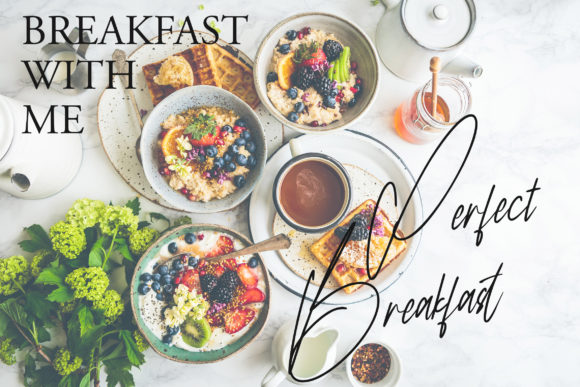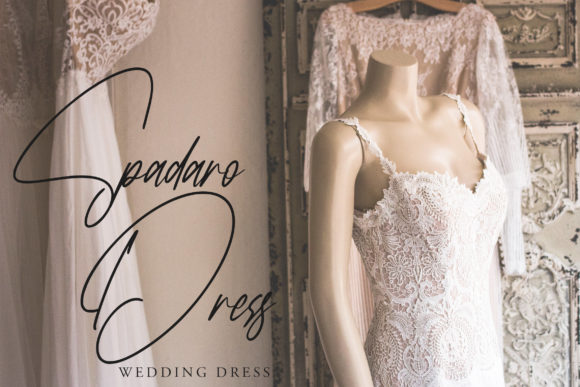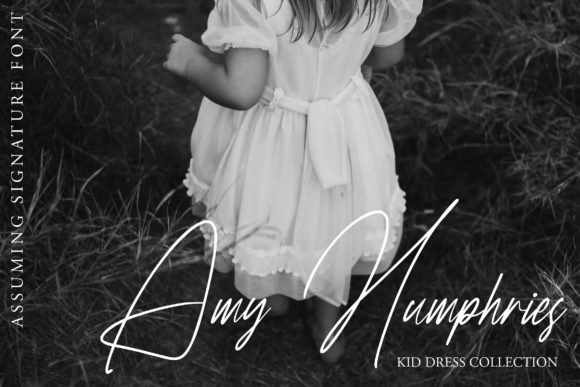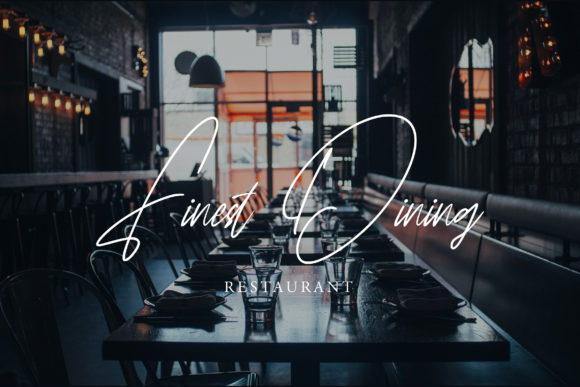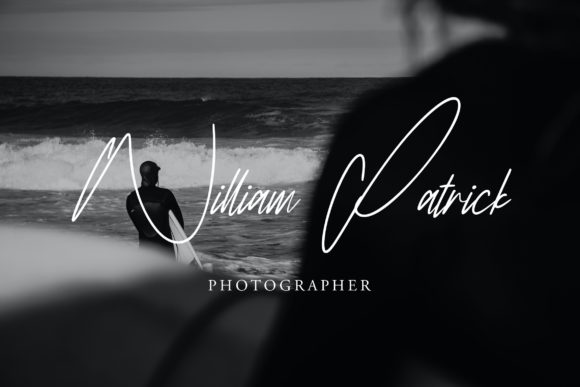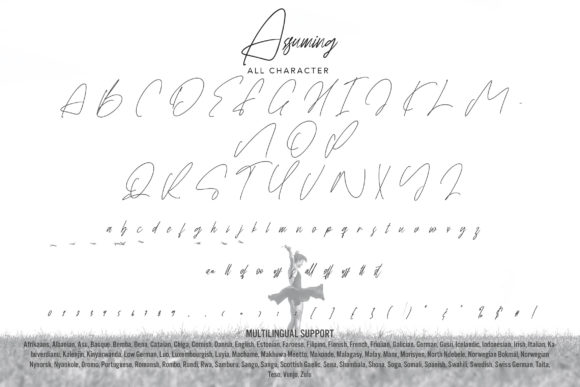
Introducing Assuming Font: Elevate Your Design with Elegance and Sophistication
In the world of typography, few fonts manage to capture the essence of luxury and romance as effortlessly as Assuming Font. This exquisite, thin calligraphy typeface is designed to add a touch of elegance and sophistication to any design project. With its unique charm and fluidity, Assuming Font is set to become a favorite among designers and crafters looking to infuse their creations with a sense of high-end style.
The Characteristics of Assuming Font
Assuming Font stands out with its romantic and thin calligraphy style, where characters seem to dance along the baseline. This dynamic movement creates a sense of fluidity and grace, making it perfect for projects that require a touch of luxury and refinement. The font’s design is meticulously crafted to ensure that each letter, word, and sentence flows seamlessly into the next, creating a visually stunning effect that captivates the viewer.
Adding a Luxury Spark to Your Designs
Whether you’re working on a branding project, packaging design, wedding invitations, or any other creative endeavor, Assuming Font is sure to add a spark of luxury. Its elegant and sophisticated appearance instantly elevates the design, making it more appealing and engaging. The font’s versatility allows it to be used in various contexts, from digital platforms to print materials, ensuring consistency and high-quality presentation across all mediums.
Why Designers and Crafters Love Assuming Font
Designers and crafters adore Assuming Font for several reasons:
- Elegance and Sophistication: The font’s luxurious feel makes it perfect for high-end branding, fashion, and lifestyle projects.
- Versatility: Assuming Font can be used in a wide range of design applications, from digital interfaces to print materials.
- Readability: Despite its thin and delicate appearance, the font maintains excellent readability, making it suitable for both headings and body text.
- Uniqueness: Assuming Font’s distinctive style sets it apart from more traditional typefaces, allowing designers to create unique and memorable designs.
Tips for Using Assuming Font Effectively
To make the most of Assuming Font, consider the following tips:
- Pair with Complementary Fonts: Combine Assuming Font with simpler, sans-serif fonts for contrast and visual interest.
- Adjust Letter Spacing: Fine-tune the letter spacing to enhance the font’s fluidity and ensure optimal readability.
- Use for Headings and Accents: Apply Assuming Font to headings, titles, and accents to draw attention and add a luxurious touch.
- Experiment with Colors: While the font itself is elegant, experimenting with metallic or pastel colors can further enhance its luxurious feel.
Assuming Font is a game-changer for designers and crafters seeking to infuse their projects with elegance, sophistication, and a touch of luxury. Its romantic, thin calligraphy style, combined with its versatility and readability, makes it an invaluable asset in any designer’s toolkit. By incorporating Assuming Font into your projects, you’re not just choosing a typeface; you’re elevating your design to new heights of style and refinement.
So, why settle for ordinary when you can create something extraordinary with Assuming Font? Dive into the world of luxury typography and let your designs speak elegance and sophistication.